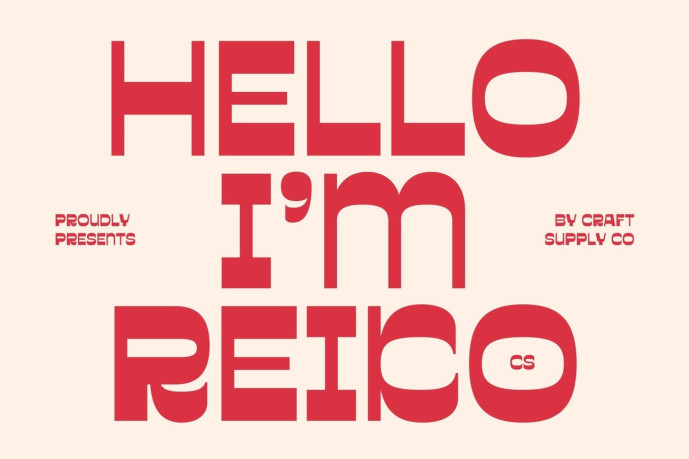
Reiko – Reverse Contrast Font
Designer: Craft Supply Co.
CS Reiko – Reverse Contrast Display Font: Where Modular Geometry Meets Retro Boldness Bold Letterforms with Geometric Retro Style This is a reverse contrast display font that combines bold, high-impact letterforms with clean geometric shapes and a distinctive modular aesthetic. Its unconventional stroke contrast, where horizontal strokes are thicker than vertical ones, creates a striking visual identity that immediately captures attention. Inspired by classic design movements yet refined for contemporary use, it delivers typography that feels both nostalgic and fresh.
Modular Construction with Strong Visual Rhythm This font embraces a modular approach that enhances consistency and visual balance. The bold proportions and clean construction create a powerful rhythm across headlines, making every composition appear confident, stylish, and highly memorable. Its retro-inspired design adds personality without sacrificing clarity or versatility.
Classic Inspiration with Contemporary Impact This font creates a unique visual identity that bridges vintage aesthetics and modern graphic design. Its bold forms evoke the spirit of retro typography while maintaining the clean sophistication needed for today’s creative applications. The result is typography that feels expressive, energetic, and unmistakably distinctive.
Perfect for Posters, Logos, and Editorial Layouts Ideal for posters, editorial layouts, magazine covers, logos, packaging, advertising campaigns, event promotions, merchandise, and other creative projects that demand bold visual impact. Its reverse contrast structure and modular design make it perfect for typography that communicates confidence, originality, and retro-inspired style.